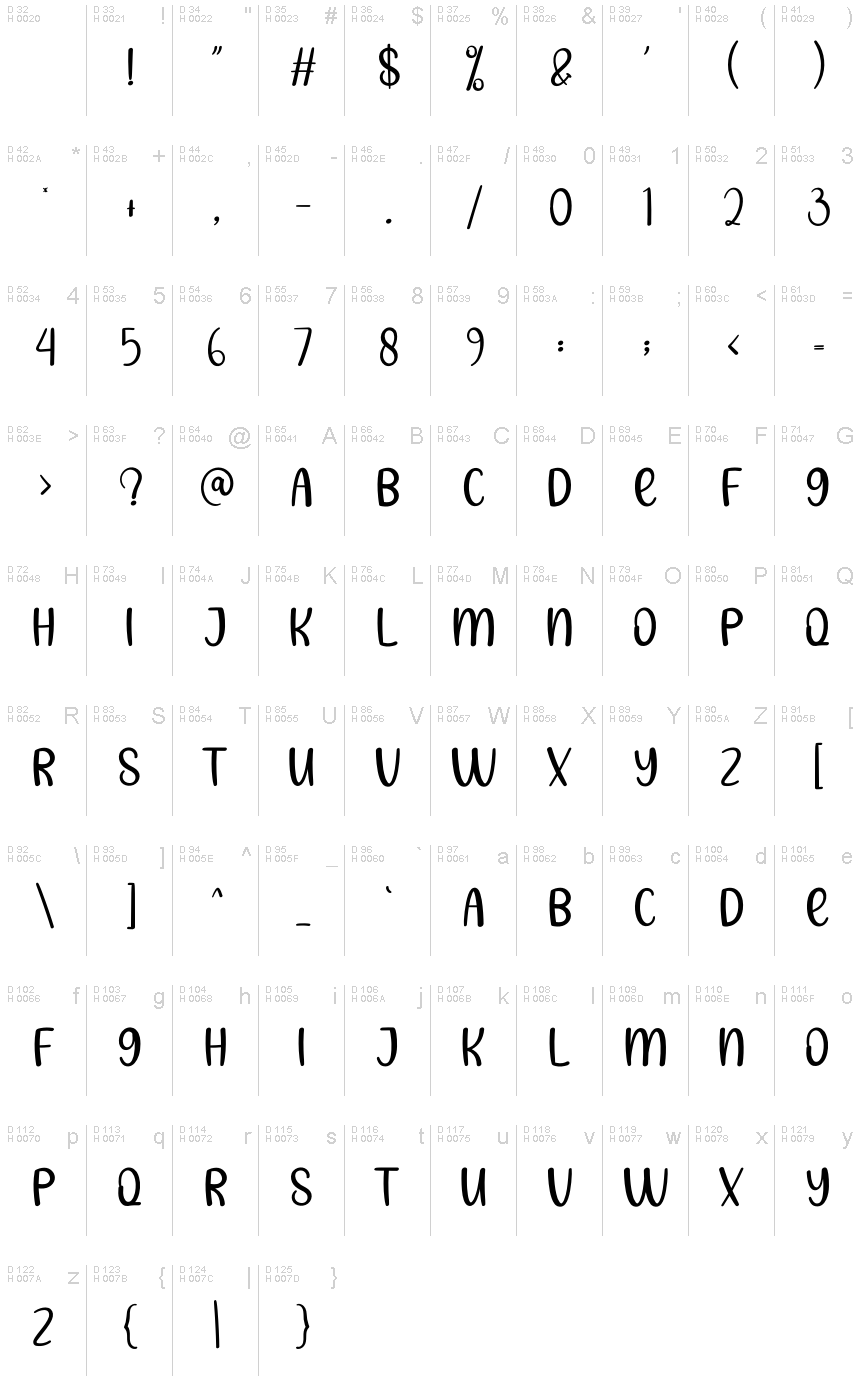
Orchid Flower
Orchid Flower, designed by Scratchones, flows effortlessly across the page with the grace of a calligrapher's brush. This font exudes a personal touch that seems to capture the very essence of handwriting, making it brim with character and charm. Its strokes bear a gentle irregularity akin to the natural variation found in human script, inviting an intimate connection between words and their readers.
With its casual elegance, Orchid Flower is particularly suited for designs that require a touch of personality—think wedding invitations, personalized stationery, or boutique branding. It can also infuse warmth into creative projects such as book covers or craft-oriented endeavors where a handwritten aesthetic is desired. The font's friendly and approachable style ensures it stands out in contexts where a handcrafted feel is celebrated.